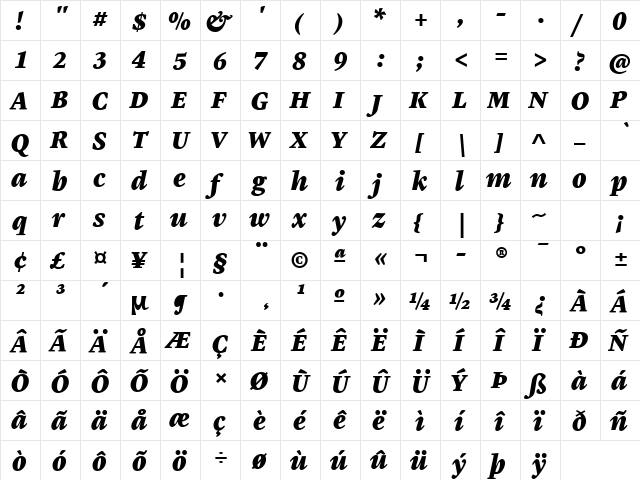
Malabar Pro Heavy Italic
| Foundry | Linotype GmbH |
| Designer | Dan Reynolds |
Design Context for Malabar Pro Typeface
Malabar Pro is a composed and adaptable typeface that performs quietly and consistently across a wide range of design contexts. The slanted form adds forward momentum and visual energy.